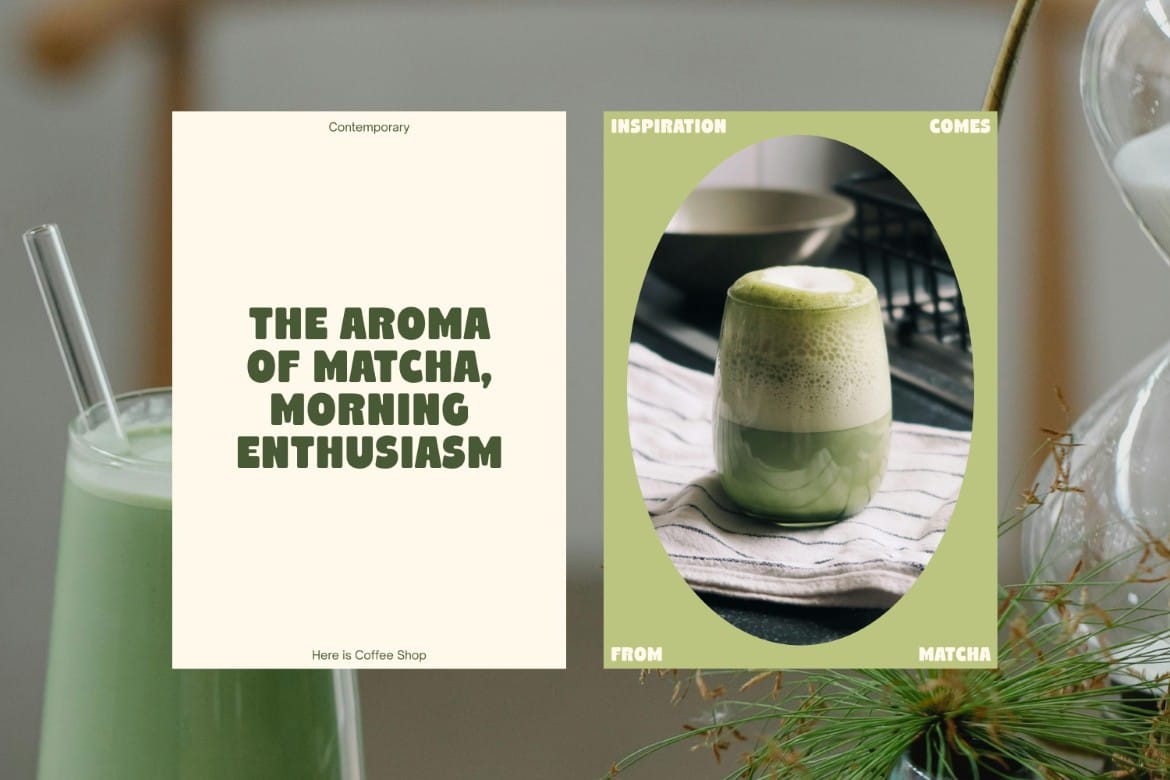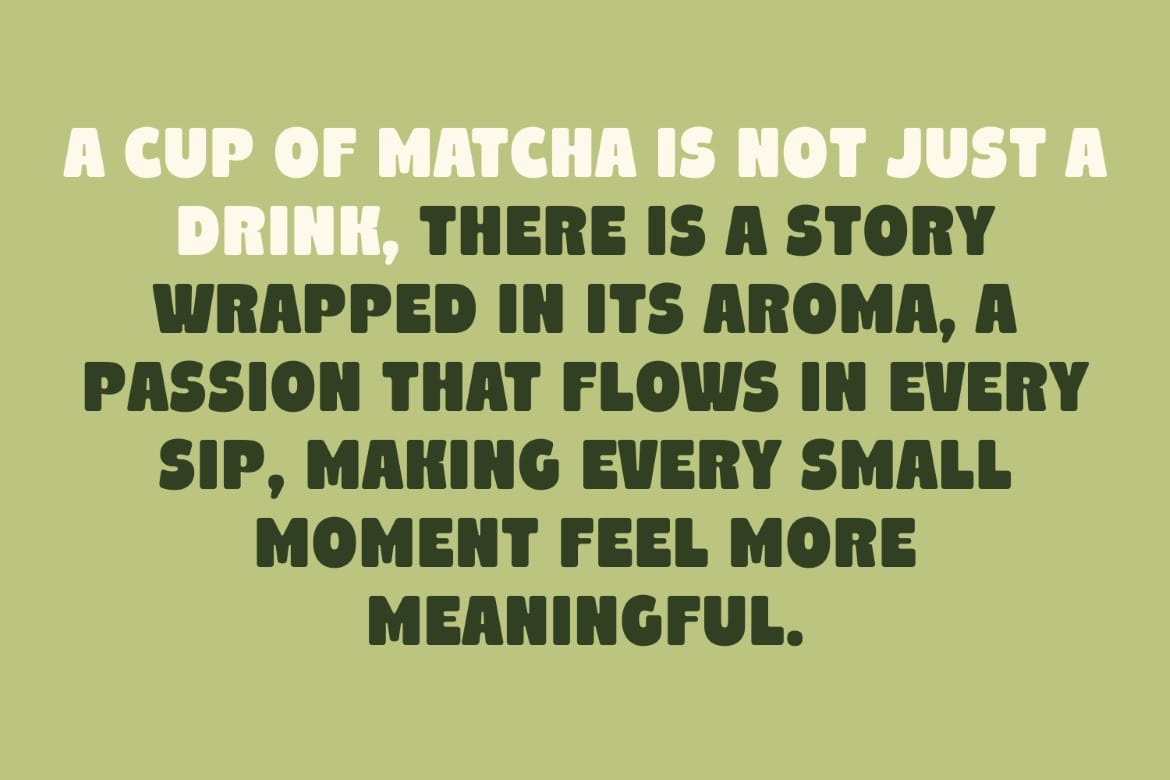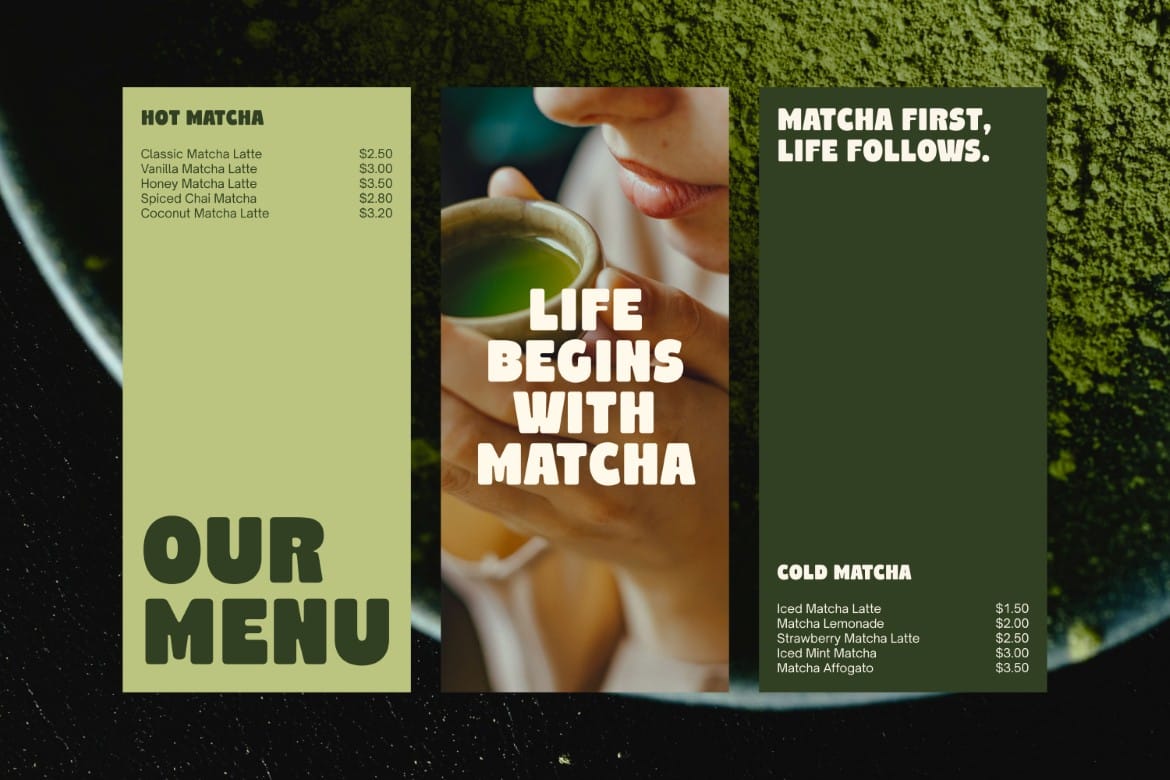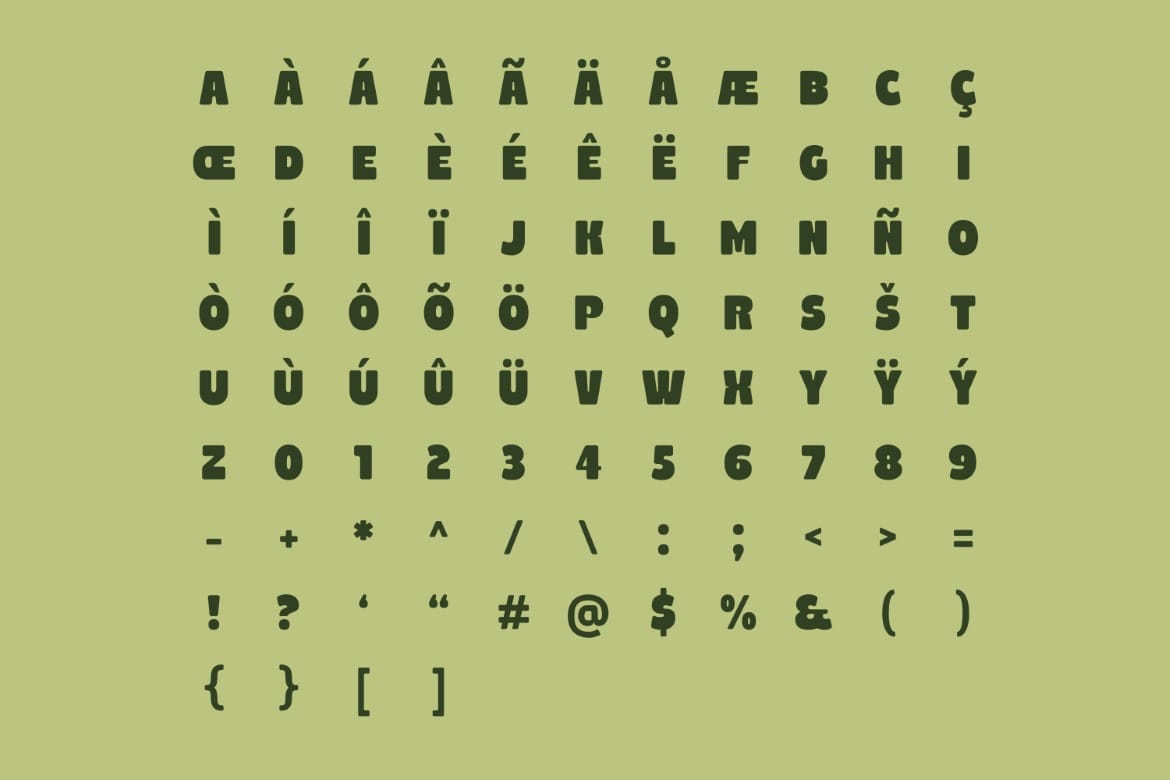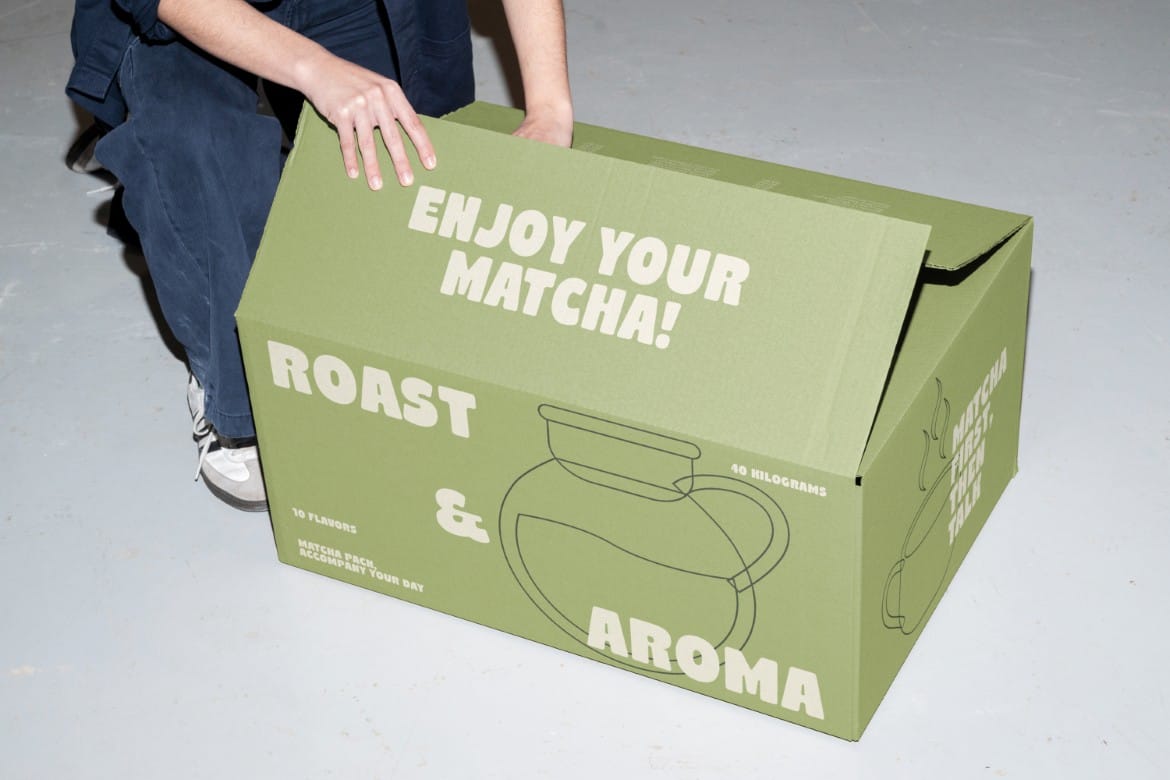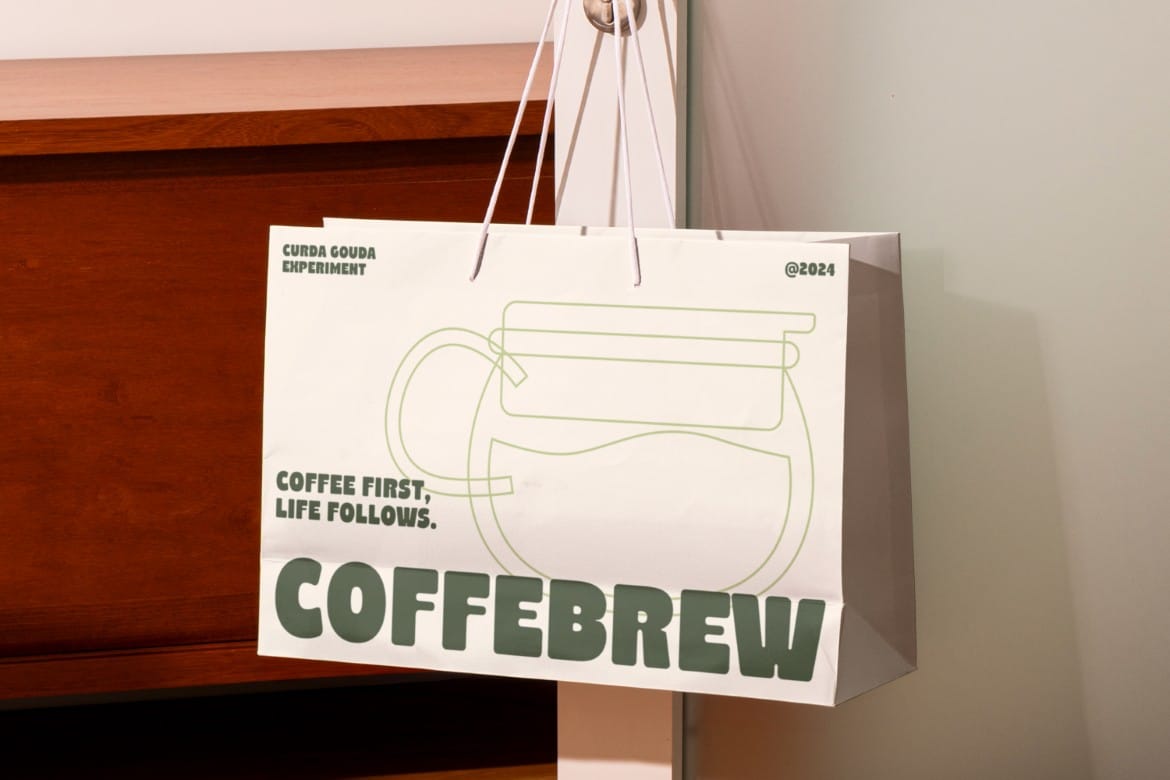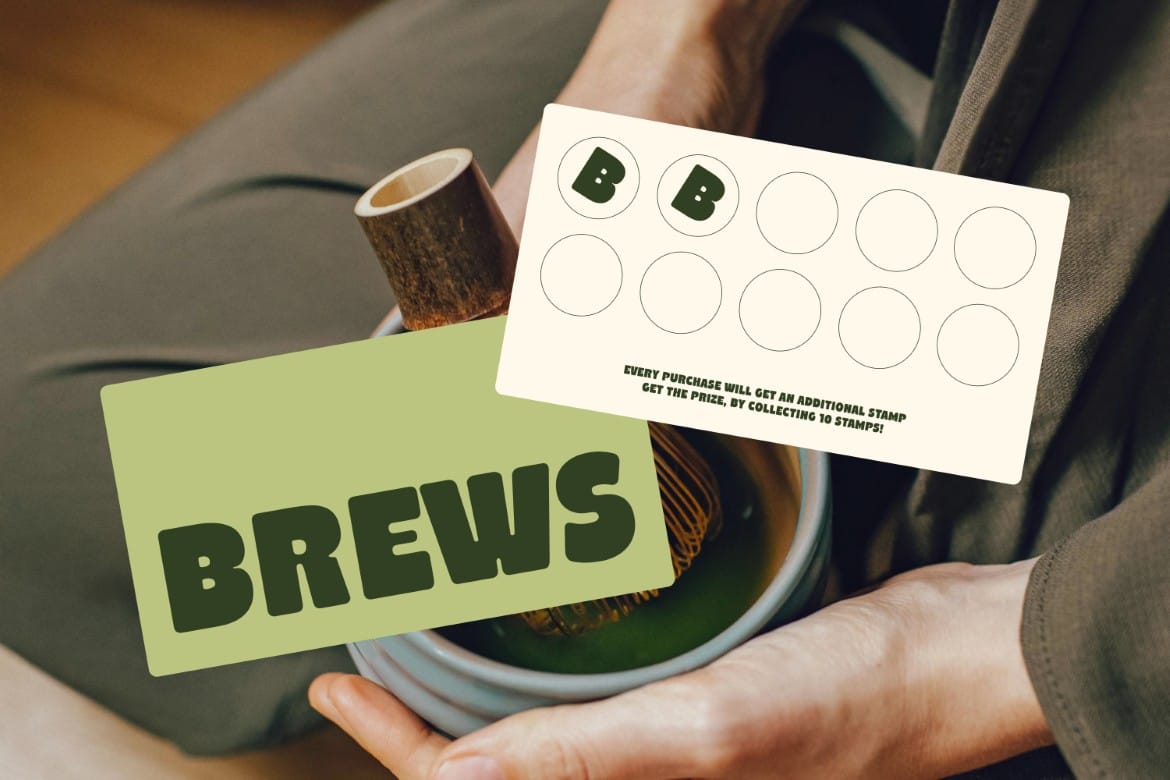
Introducing Curda Gouda, the Retro Display Font that infuses your designs with a delightful vintage flair. Perfect for eye-catching posters, playful packaging, and whimsical branding, this font features bold, rounded characters that exude a cheerful and nostalgic vibe. The charming, animated letterforms bring a touch of fun and personality to any project. Let Curda Gouda add a burst of retro joy and vibrant energy to your creative endeavors, making your designs unforgettable and full of life.